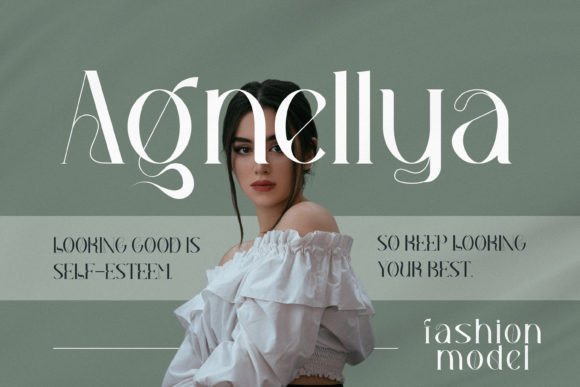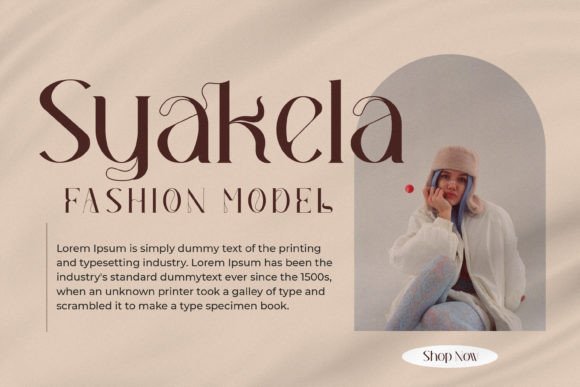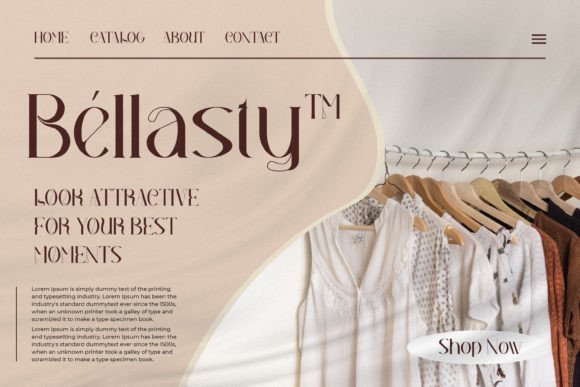
Introduction to Sejenak Font
Sejenak is a stylish serif font that seamlessly marries classic elegance with modern flair.
👤 Author jeritype
Its meticulously crafted letterforms exude sophistication, bringing a touch of refinement to your designs Ideal for projects that demand a timeless yet contemporary aesthetic, this font adds a distinctive charm to your typographic expressions.
Key Features of Sejenak Font
Why Choose Sejenak Font?
Sejenak Font offers exceptional quality and versatility, making it a valuable addition to your design toolkit. Whether you’re creating for personal projects or commercial use, Sejenak Font delivers professional results.